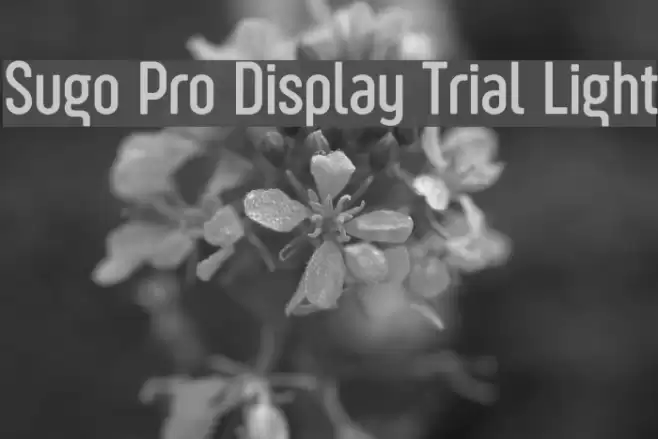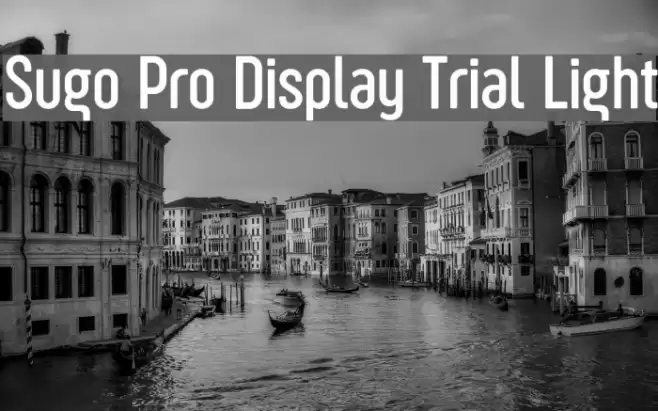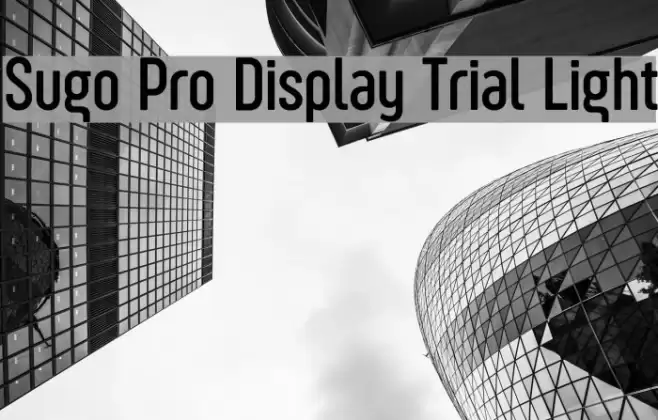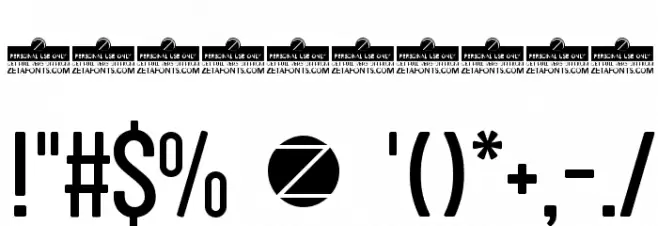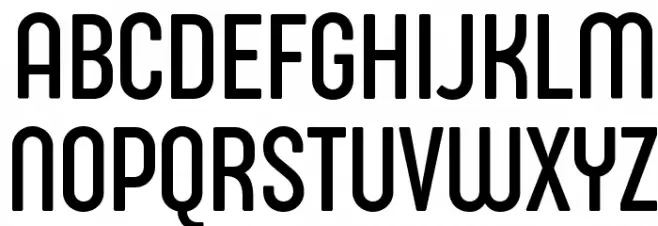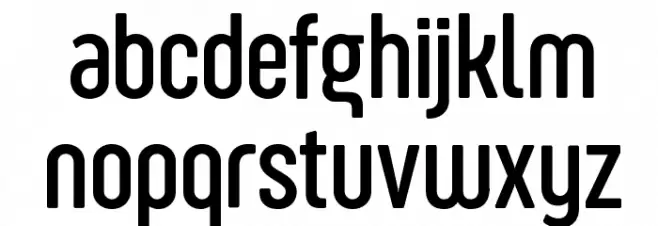
Sugo Pro Display Trial Light Font
Sugo Pro Display Trial Light Description
This font features a modern, geometric design with clean lines and rounded edges, creating a sleek and contemporary appearance. The uppercase and lowercase letters maintain a consistent height, contributing to a uniform and balanced look. The numerals and special characters are designed to complement the letterforms, ensuring readability and style. The overall aesthetic is minimalistic yet bold, making it suitable for various design applications.
A modern, geometric font with clean lines and rounded edges from Uncategorized fonts.
- Proposed Projects: Ideal for branding, advertising, web design, and editorial projects where a modern and clean aesthetic is desired.
- Use Case: Headlines, Logos, Web design